Rengat Mono – Monospace Font
Rengat Mono – Monospace Font is a versatile typeface ideal for various projects, including logos, branding, posters, blog headers, advertisements. Designed by Zippieletras, it brings a distinctive character to every project. The free version includes a full set of uppercase…
SkyeFolz – Futuristic Font
SkyeFolz – Futuristic Font is a versatile typeface ideal for various projects, including logos, branding, posters, blog headers, advertisements. Designed by Zippieletras, it brings a distinctive character to every project. The free version includes a full set of uppercase and…
Reflow Mono — Editorial Fixed-Width Typeface Font
Reflow Mono is the monospaced sibling of Reflow Sans, a calm geometric design where every glyph sits on the same 640-unit grid. Ten styles from Regular to ExtraBold with italics make it an editorial mono, not just a coding font.
Megolf – Elegqant Serif Font
Megolf is a flared display serif with curling strokes and a 1970s, Art Nouveau feel. It suits logos, shirt prints and bold posters where a serif needs some personality.
Melrank Modern Ligature Serif Font
Melrank is a soft, elegant modern serif by Alfinart, known for its bold joined ligatures. It mixes classic serif structure with flowing, feminine curves, which suits florists, beauty brands, fashion labels and wedding stationery.
Rimes Elegant Serif Font
Rimes is a high-contrast serif from Perfectype with sweeping ligatures and alternate letters. It is made for fashion logos, magazine covers and premium packaging.
Stellar – Modern Luxury Font
Stellar is a light, high-contrast serif from Pinisiart with tall proportions and fine hairlines. It is designed for fashion branding, Instagram posts and editorial titles.
Magioline – Elegant Serif Font
Magioline is a modern high-contrast serif from Muksal Creative in Regular and Italic, with alternates and ornaments. It is a natural fit for wedding stationery, fashion and editorial titles.
Vogue Elegant Serif Typeface – Classic Luxury Font
Vogue is a high-contrast serif from Perfectype with a fashion-magazine feel. Its sharp, upright capitals suit mastheads, beauty packaging and luxury logos.
Top Luxury – Luxury Modern Classy Font
Top Luxury is a slim, classy serif by HamzStudio with alternate letters for building custom logos. It is aimed at fashion labels, perfume brands and upmarket cafés.
Rosaline Marige – Modern Serif Font
Rosaline Marige is a light, fashion-style serif from Muksal Creative with upright and italic styles. Its looping, slightly quirky letters suit wedding stationery and boutique brands.
Stereo Club Font
Stereo Club is a bold retro serif by Clevus with soft, rounded shapes and 60 alternates and ligatures. It brings a 1970s feel to logos, posters and product labels.
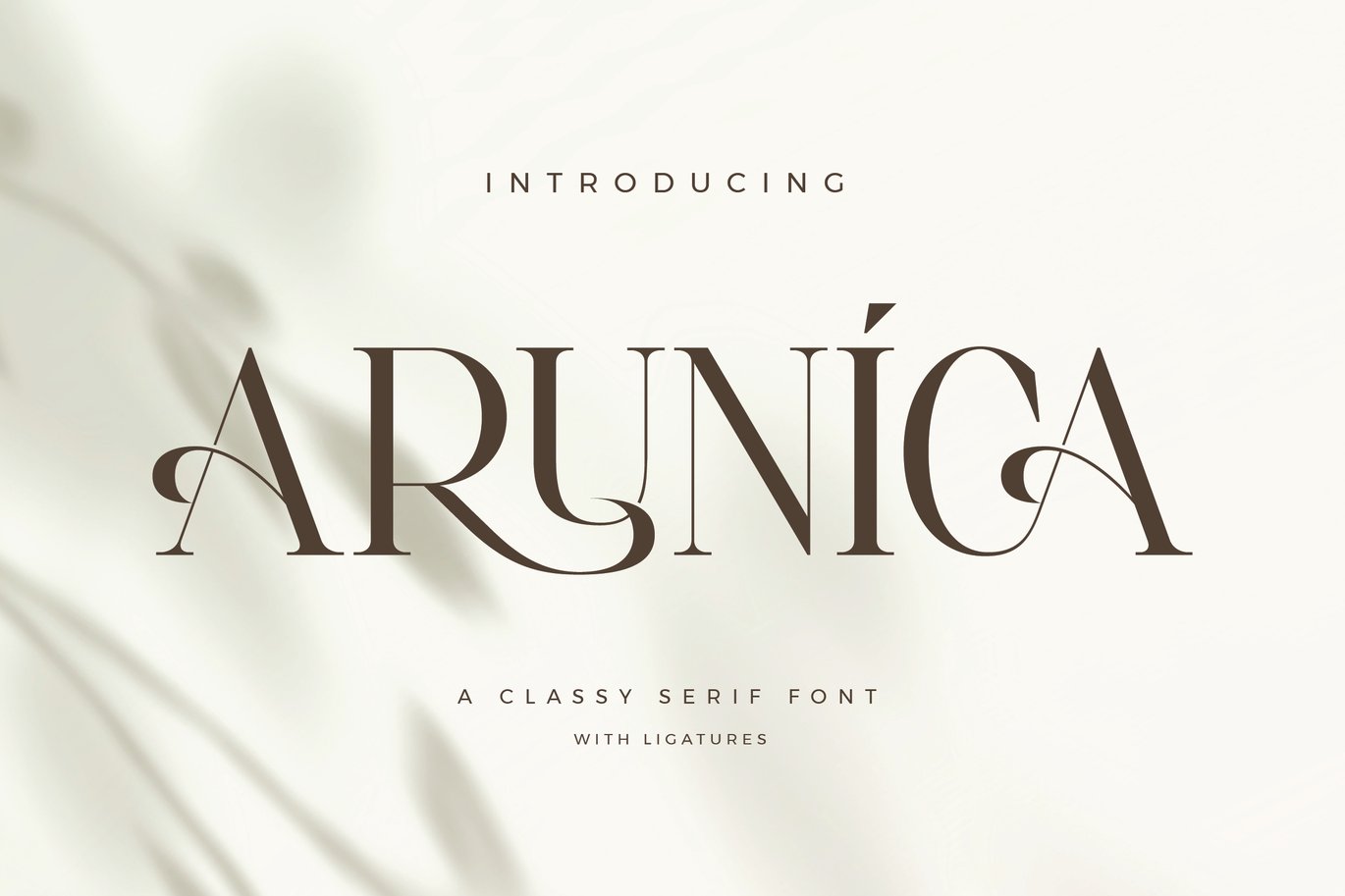
Arunica Classy Serif Font
Arunica is a classy serif by Aqeel Art Studio with curled terminals and stylish ligatures. Its capitals make strong, minimal wordmarks for jewellery, fashion and beauty brands.
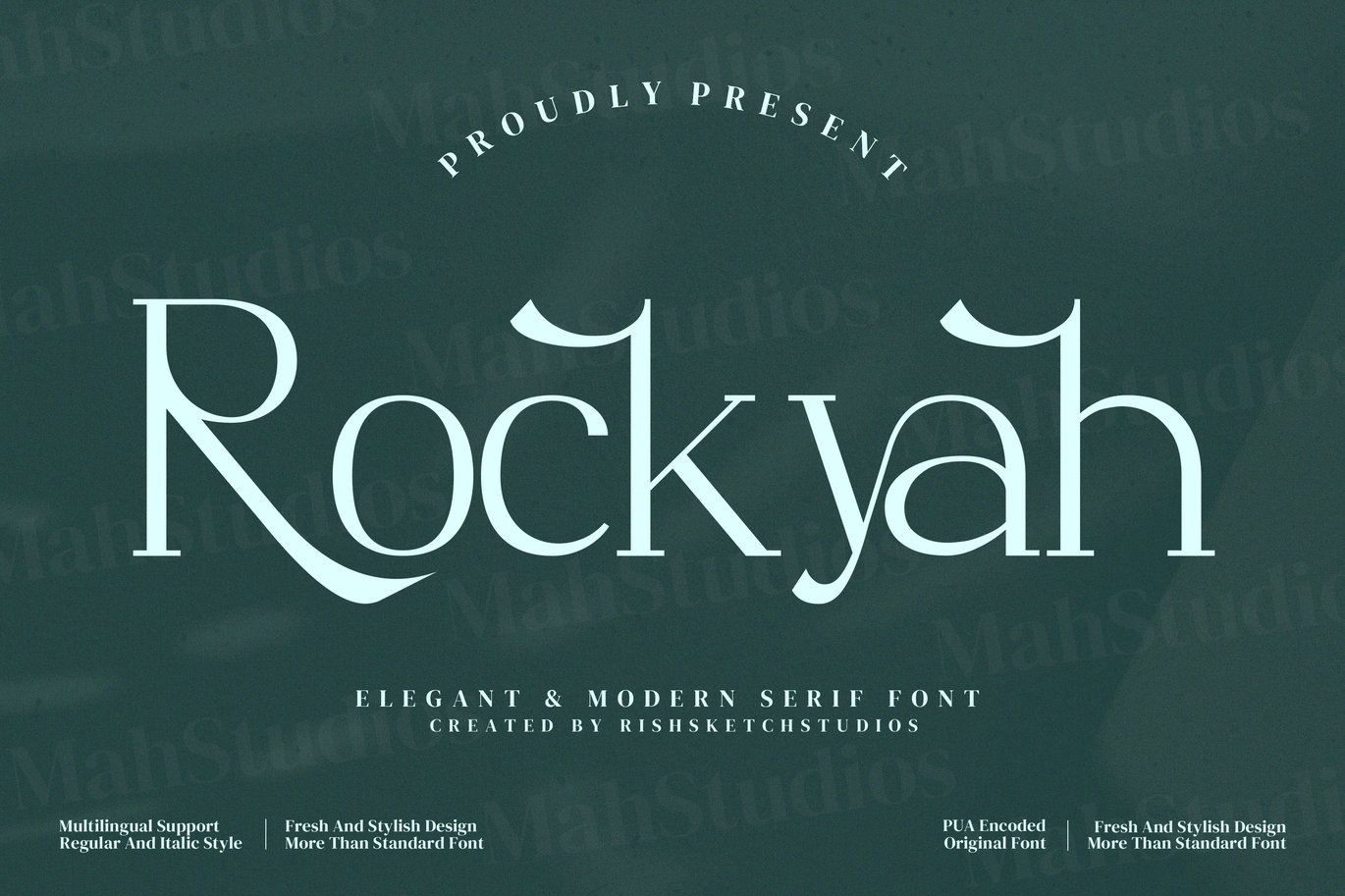
Rockyah Font
Rockyah is a tall, high-contrast serif with curling details on letters such as k and y. It suits fashion headlines, editorial titles and minimal brand names.
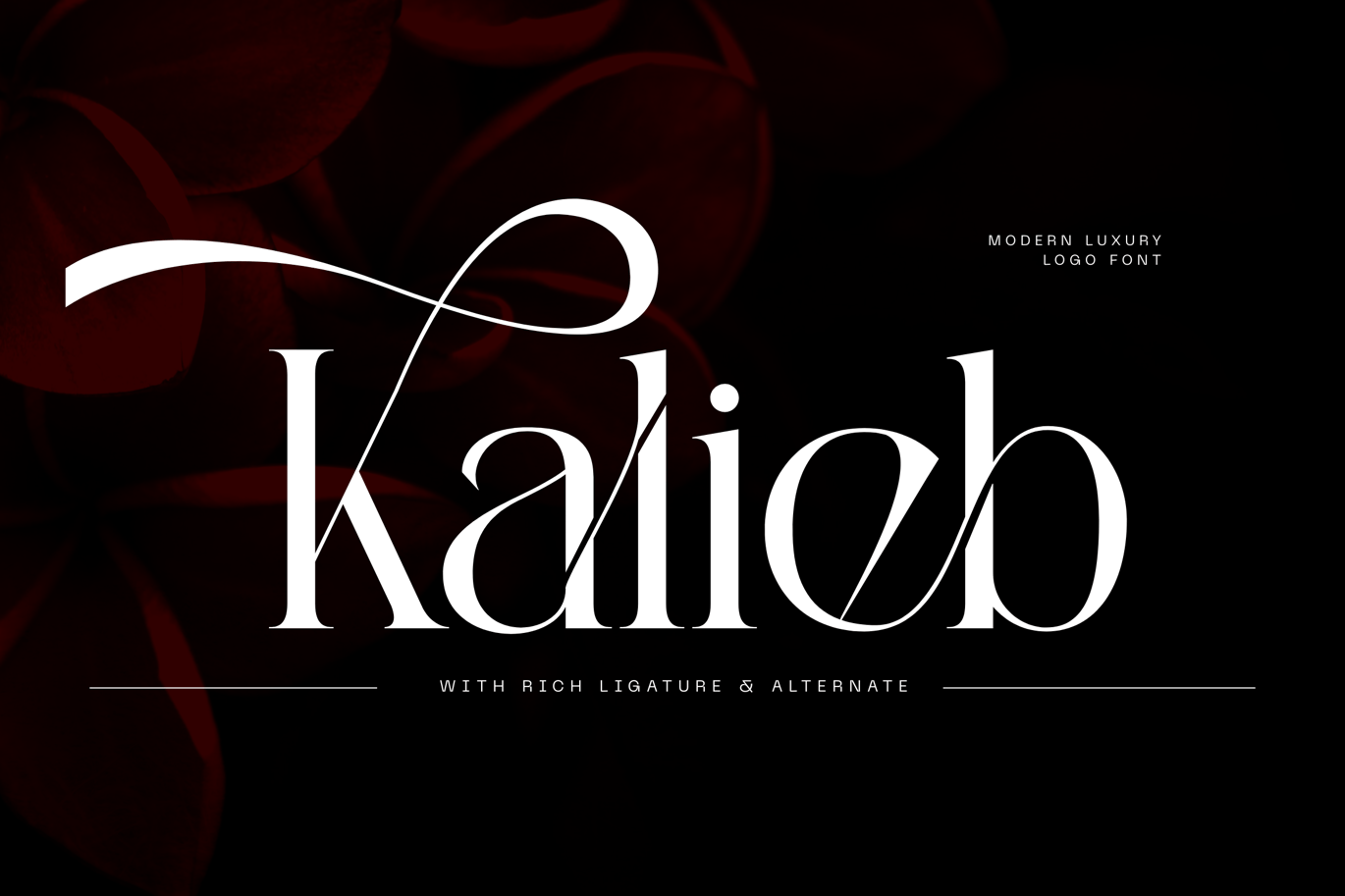
Luxury Modern Logo Font – Kalieb Luxury Font
Kalieb Luxury is a logo serif from Nirmana Visual with long, sweeping swashes and rich ligatures. It comes in Regular and Italic and is aimed at fashion, beauty and lifestyle brands.
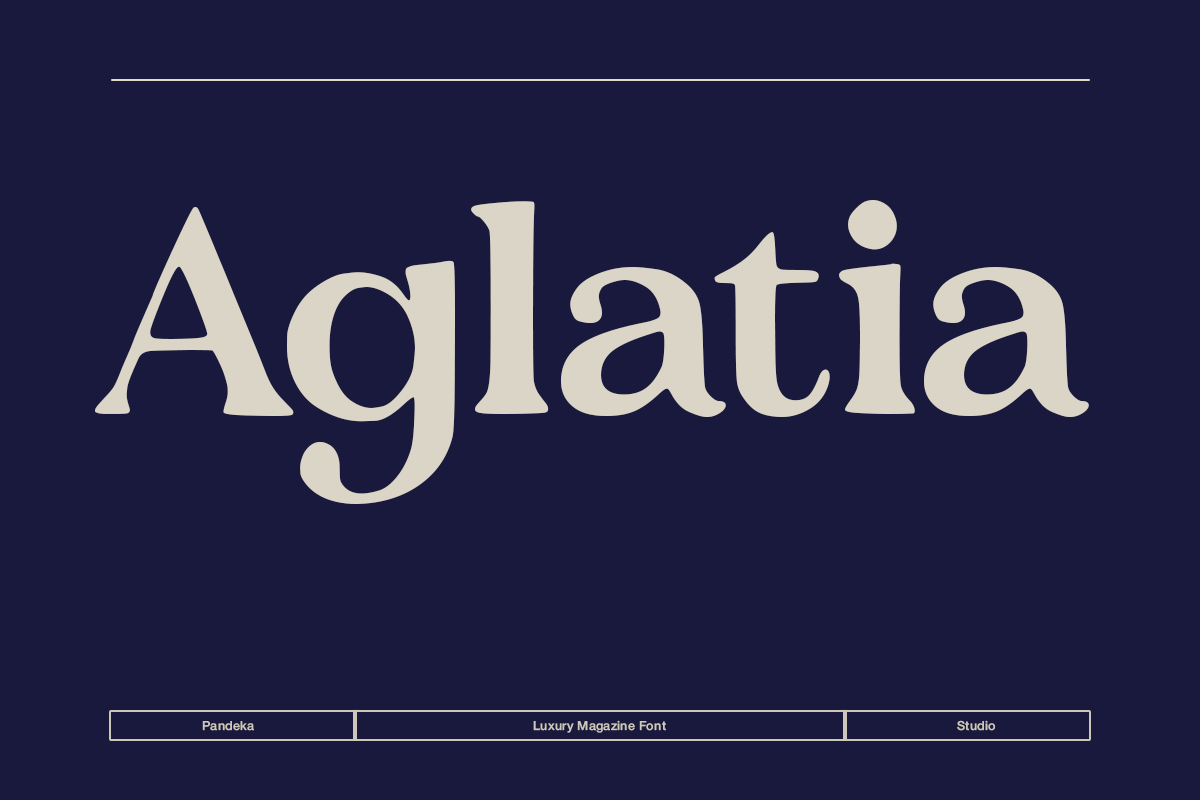
Luxury Magazine Serif – Aglatia Font
Aglatia is a soft, warm magazine serif from Pandeka Studio with rounded wedge serifs. It works for editorial headlines, fashion layouts and brand names that need some confidence.
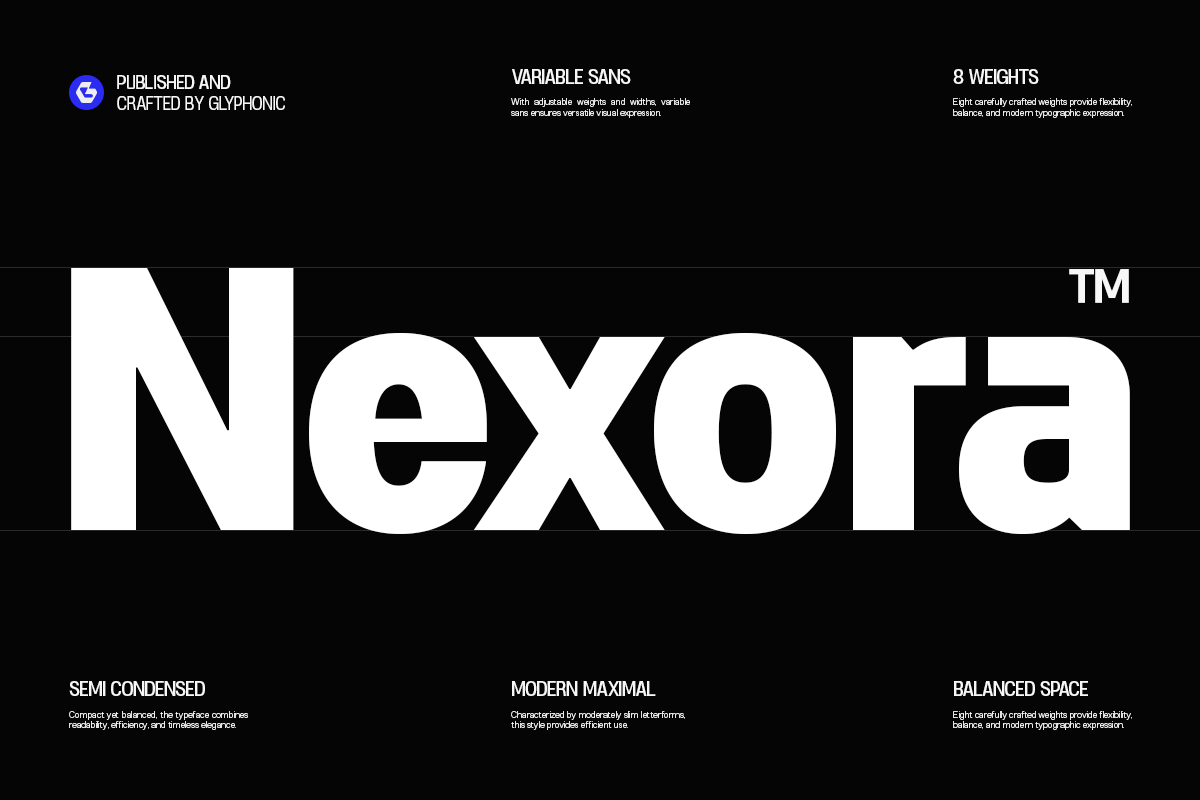
Nexora – Modern Variable Sans Font
Nexora is a semi-condensed variable sans from Glyphonic, built for bold, modern headlines. Its compact letters fit big messages into tight spaces on posters, screens and brand layouts.
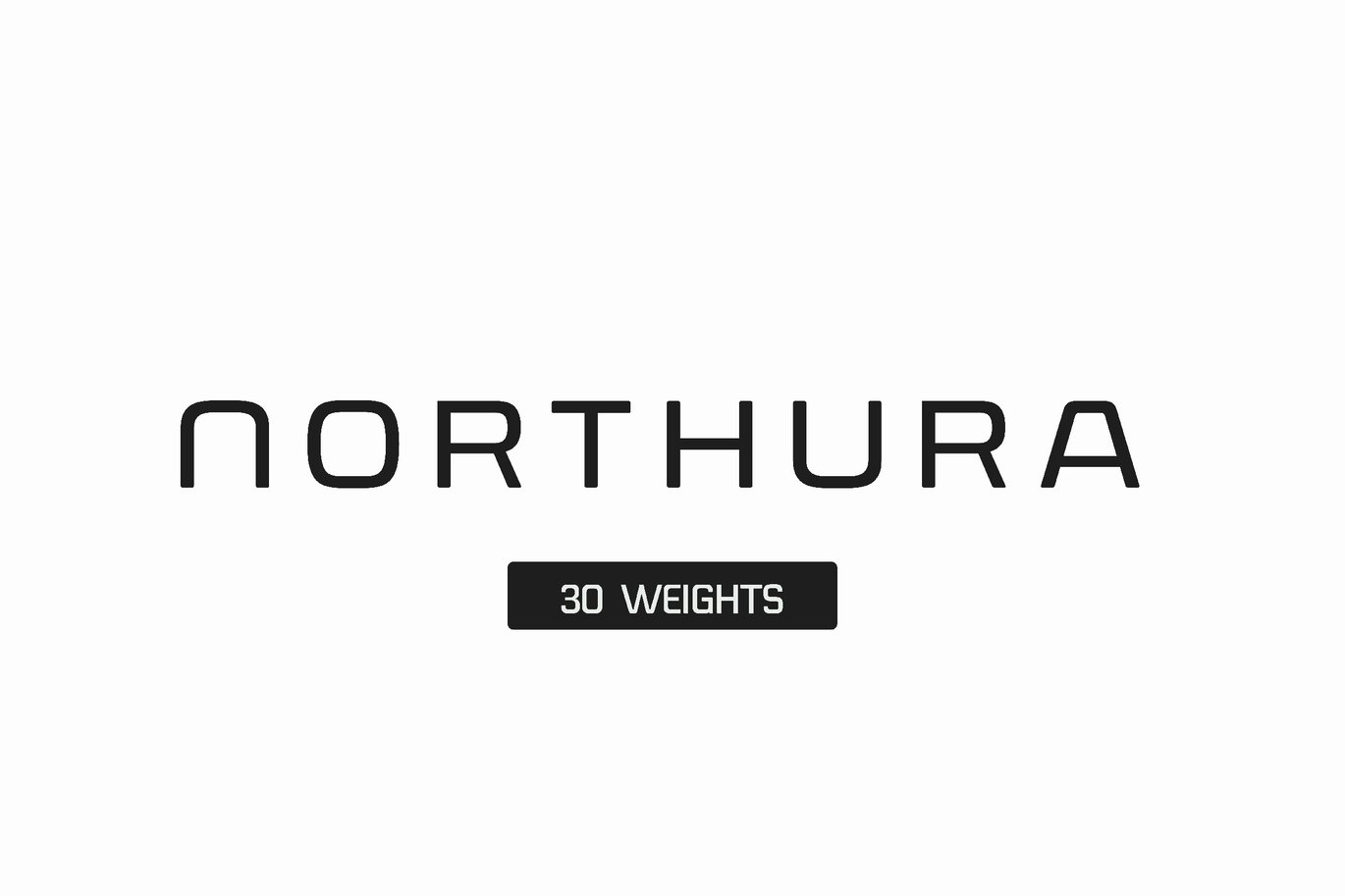
Northura – Modern Sans Family Font
Northura is a wide, squared modern sans from HipFonts with 30 styles. Its techy, rounded-square letters suit sportswear, car and tech brands, and bold product launches.
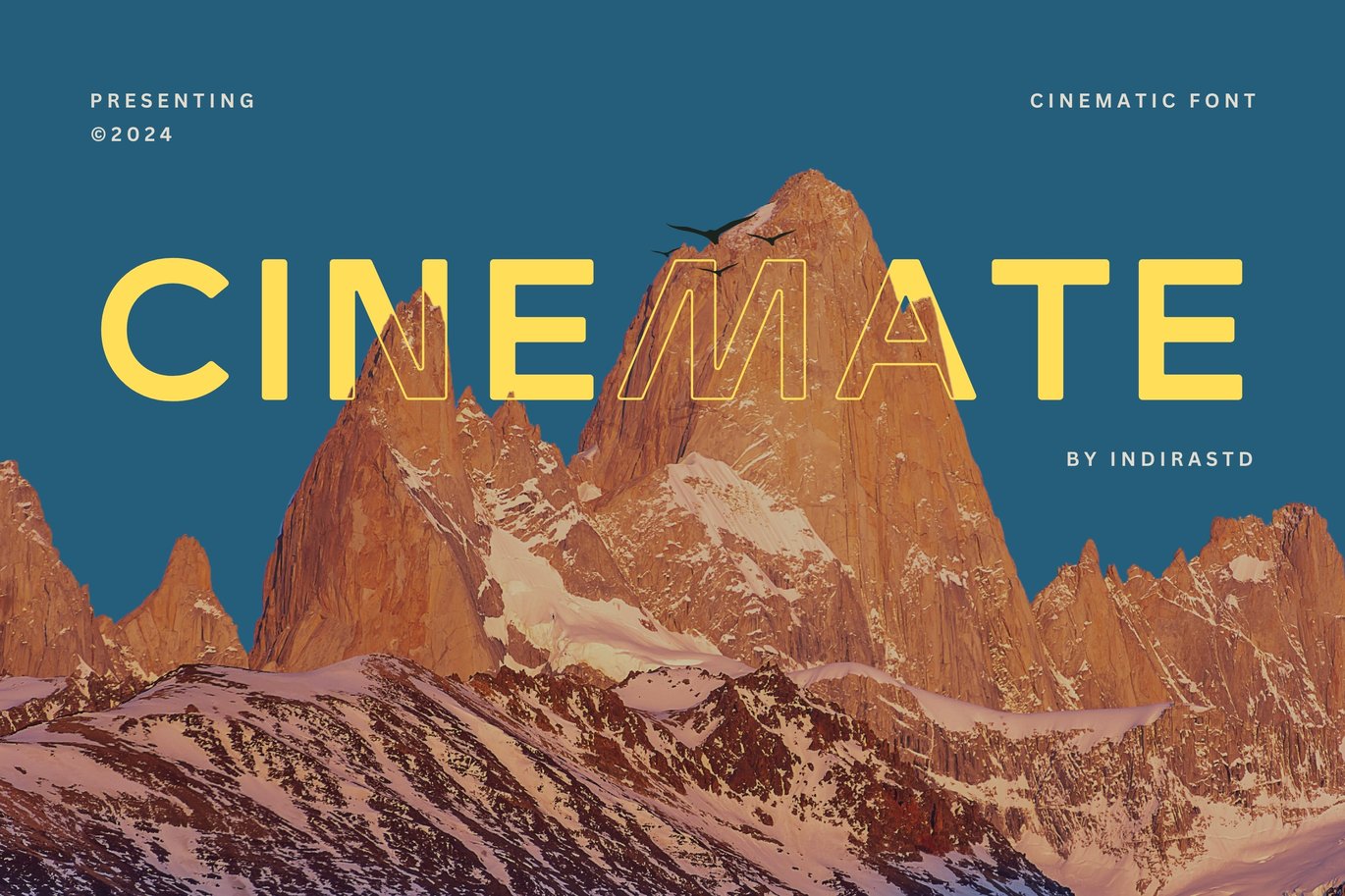
Cinemate – Cinematic Font
Cinemate is a cinematic display sans by indirastd with alternate letter shapes and ligatures. It is made for film titles, posters and fashion graphics with a wide, open look.
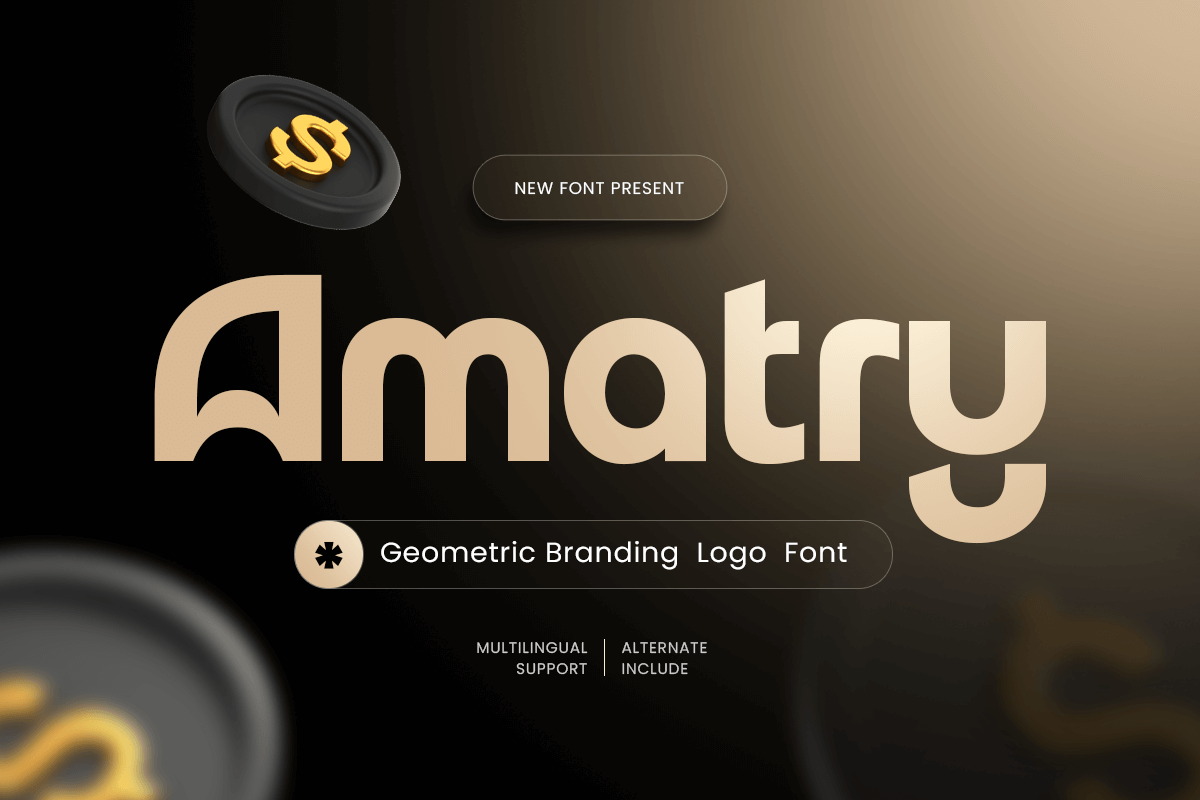
Amatry – Geometric Branding Logo Font
Amatry is a bold geometric logo font by SelarasWP with rounded corners, alternates and ligatures. It gives finance apps, start-ups and product brands a friendly but solid wordmark.
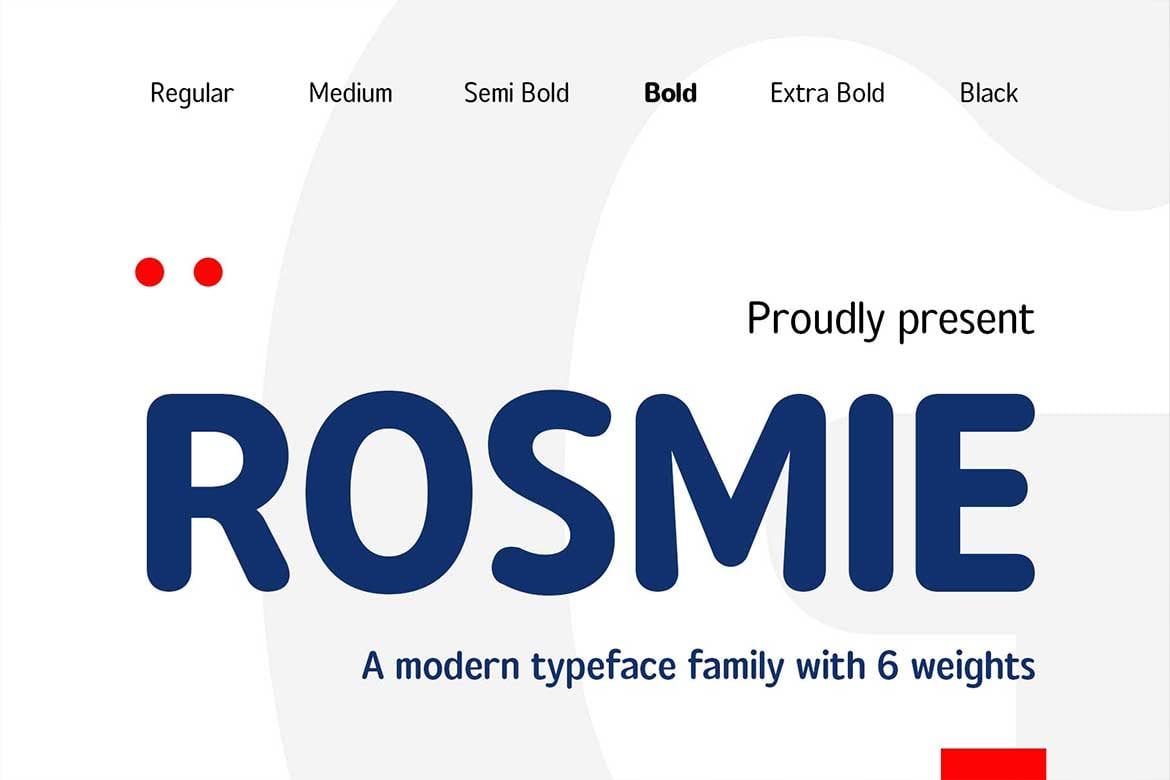
Rounded Sans Family – Rosmie Font
Rosmie is a rounded sans family from Arterfak Project inspired by 1970s typefaces. It has six weights from Regular to Black, plus slanted styles, and works for both headlines and body text.
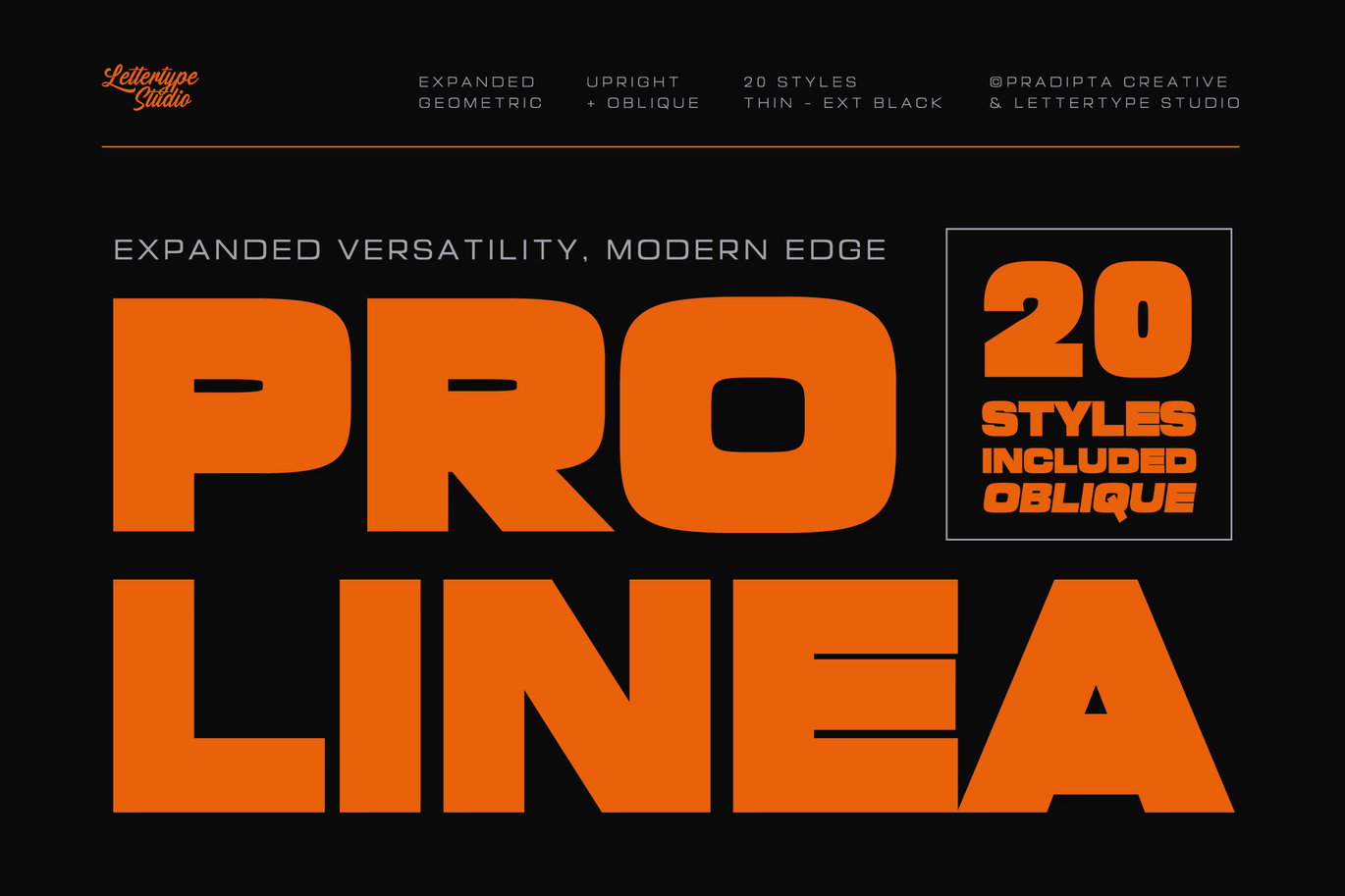
Goal – Logo Festival Football Cup Font
Goal is a chunky, festive display font by SelarasWP inspired by football tournaments. Its fat, rounded letters are made for team logos, fan merch and match-day posters.
Qaugherty Stylish Serif Font
Qaugherty is a stylish serif with Art Nouveau swashes and flowing ligatures, first released by Storytype Studio in 2022. It suits book covers, fashion logos and quotes.